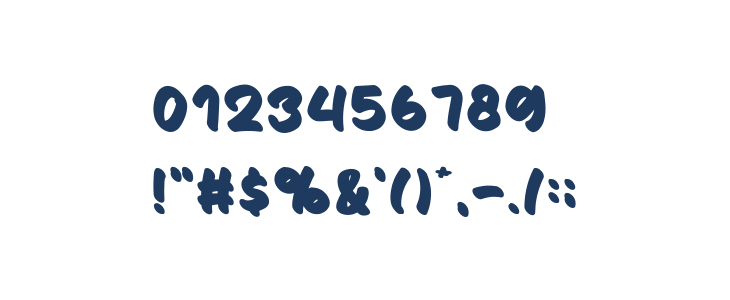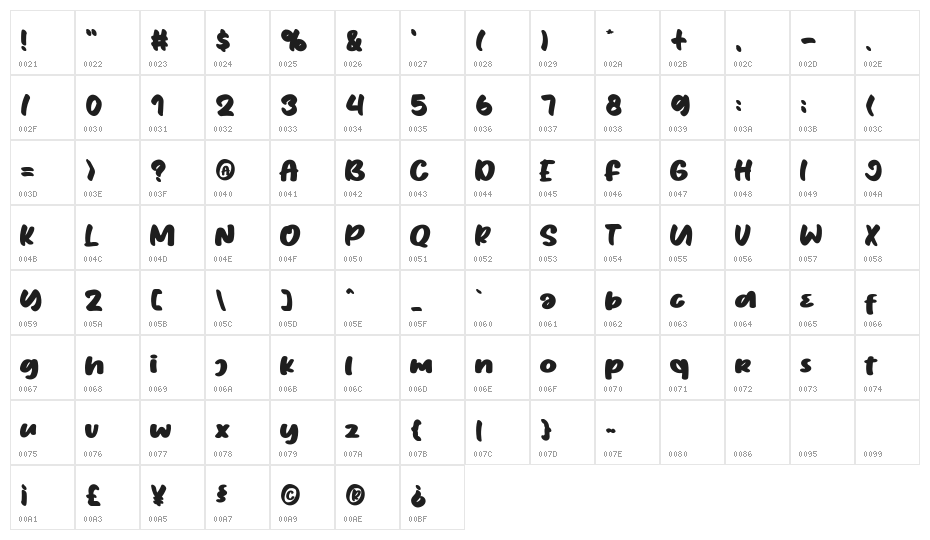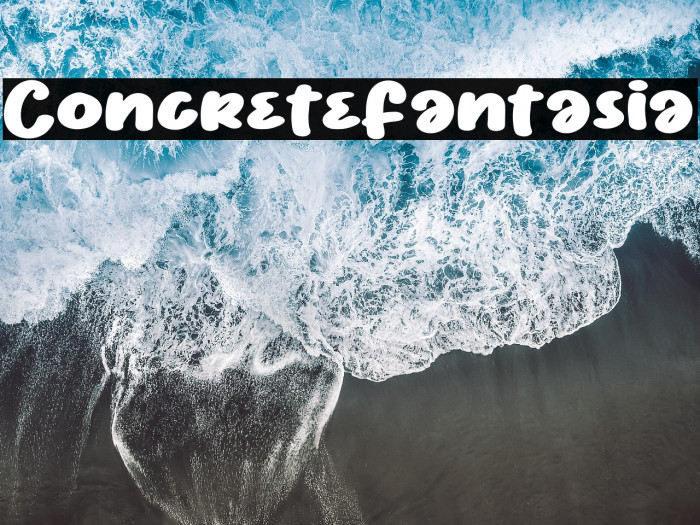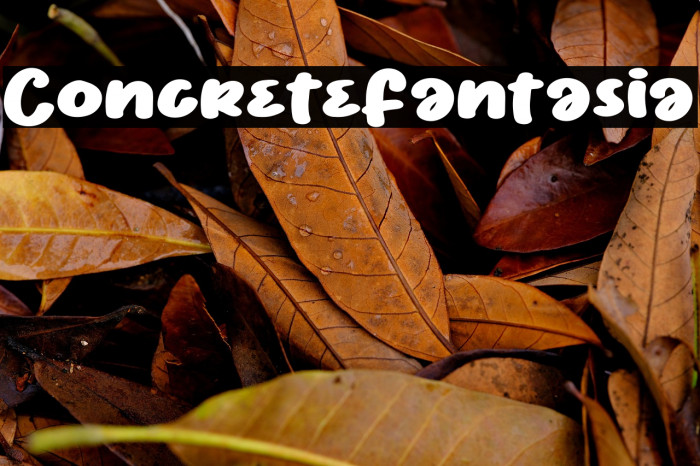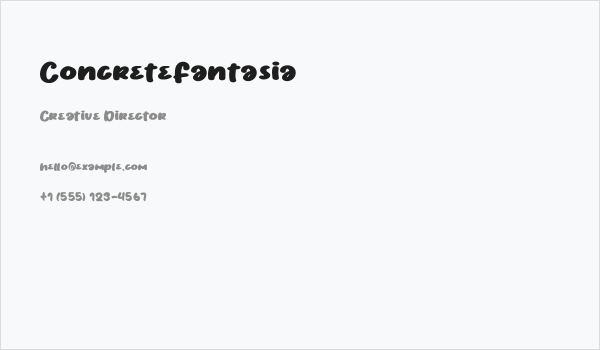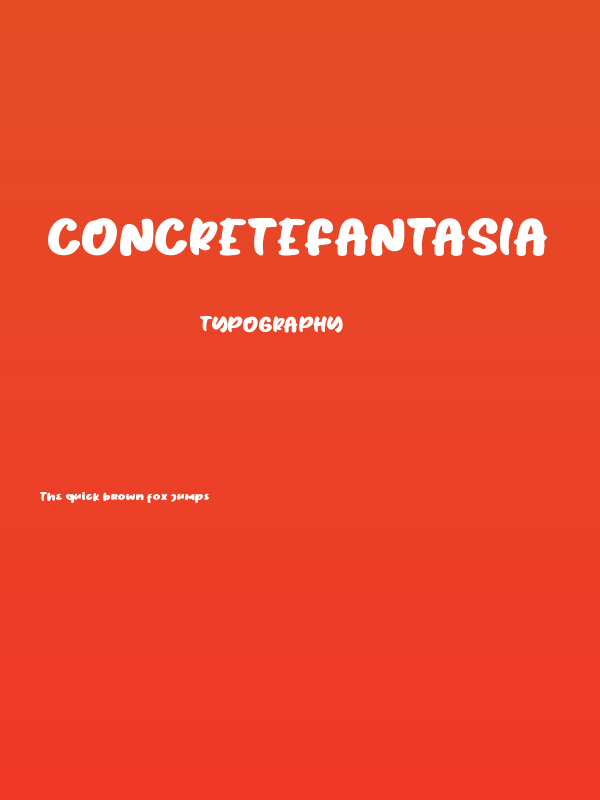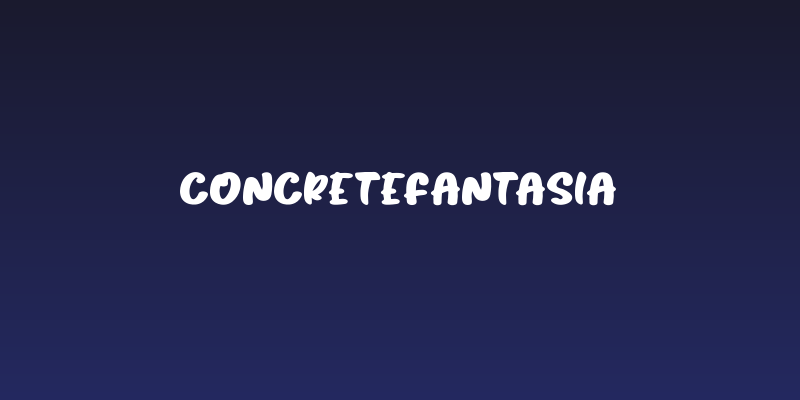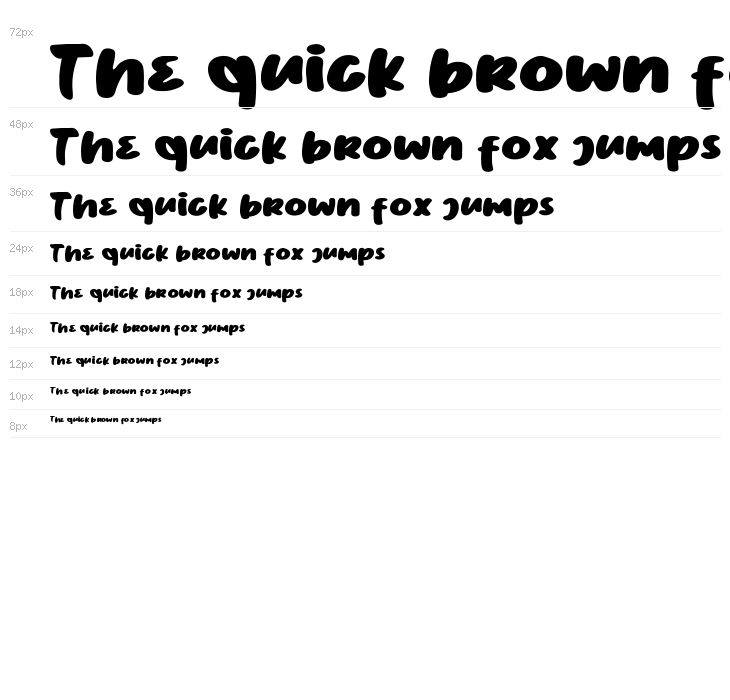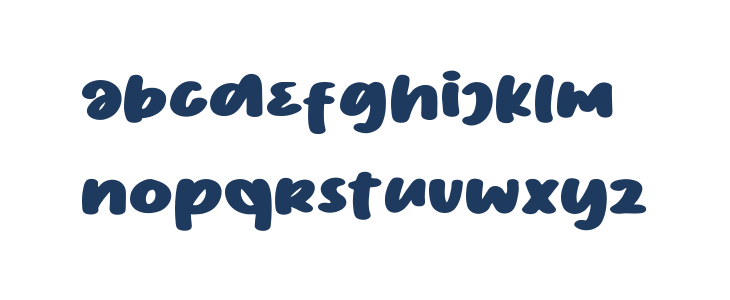
ConcreteFantasia Font
ConcreteFantasia Description
This font features a bold and playful style with a handwritten appearance. The characters are rounded and thick, giving a sense of warmth and approachability. The uppercase and lowercase letters maintain a consistent flow, with slightly exaggerated curves that add to the whimsical nature of the font. Numbers and special characters follow the same design principles, ensuring uniformity across all glyphs. This font is ideal for projects that require a friendly and informal touch, such as children's books, playful branding, or casual invitations.
| Proposed Projects | Children's books, playful branding, casual invitations, greeting cards. |